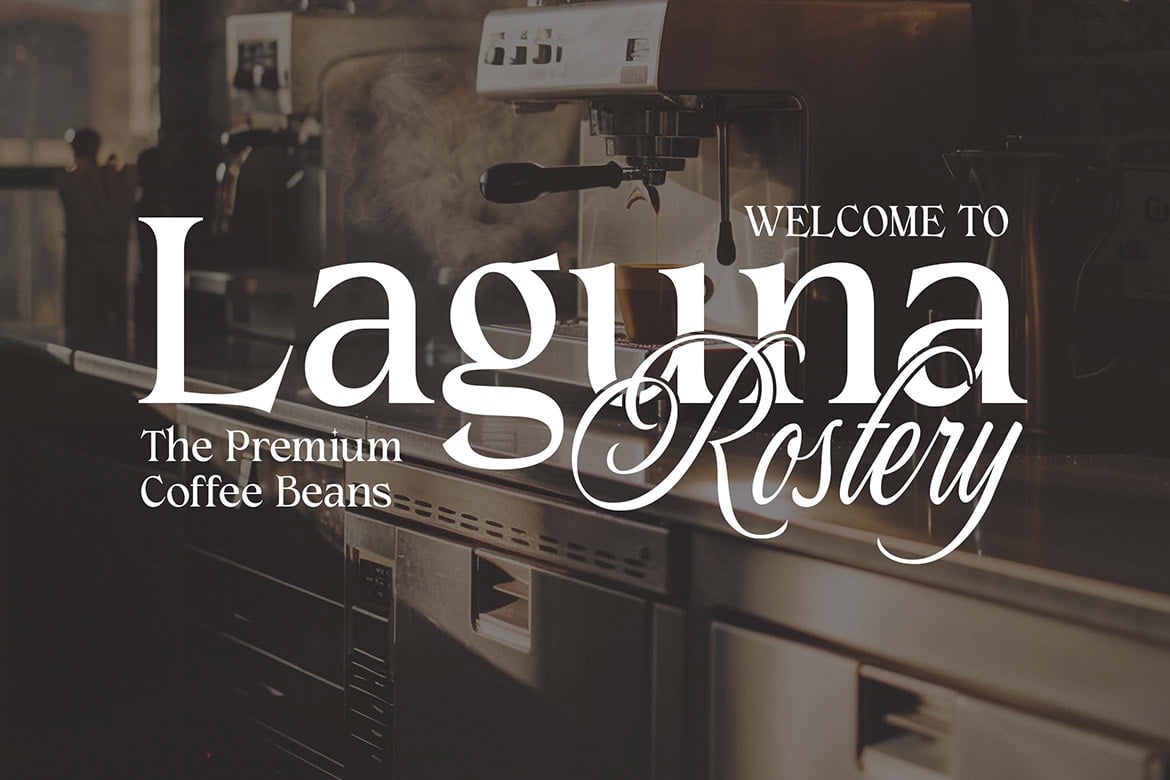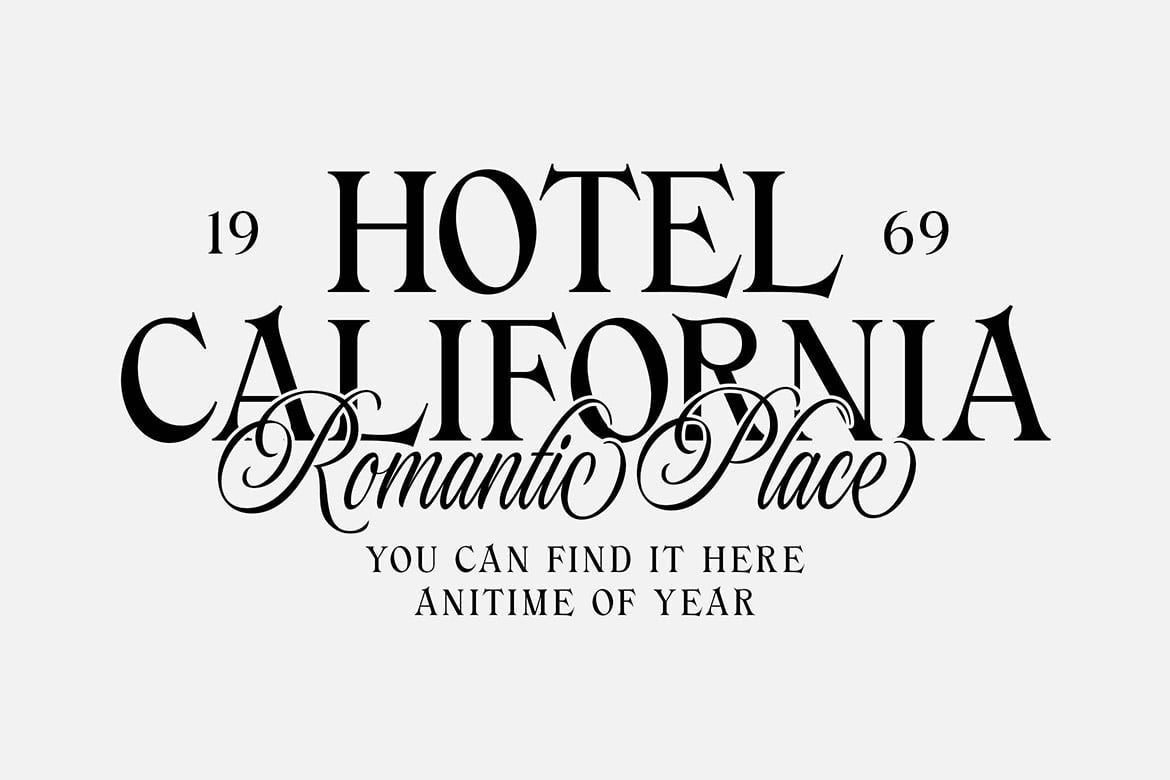
Malibu Sunday an Elegant Stylish Font Combination Font
Malibu Sunday an Elegant Stylish Font Combination Font is a versatile typeface ideal for various projects, including logos, branding, posters, blog headers, advertisements. The free version includes a full set of uppercase and lowercase letters, available in OTF format.